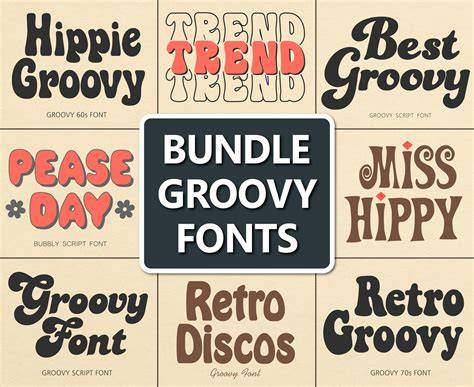
Bringing Back The 60S With Stunning Fonts
The 1960s was a time of great change, full of energy and innovation. It was an era of peace, love and music, and some of the most eye-catching fashion, art and design styles in history. From the psychedelic swirls of hippie culture to the mod look and geometric shapes of the mod movement, the 60s was a time when bold design was all the rage.
The distinctive font styles of the era have become iconic in the decades since, and they continue to be used in modern graphic design. Whether you’re looking to evoke the style of the 60s in your own work or simply want to add a little retro flair, here are some of the most popular 60s fonts for your projects.
Pop Art Fonts
The pop art movement of the 1960s was all about bright colors, bold patterns and playful imagery. To capture the style of this era, you’ll want to select a font with a modern, geometric look. Popular options include the classic Groovy Ghost font, as well as the quirky and cartoonish Rocksteady font. For a more abstract feel, try the Pop Art font or the Pop Art Deco font.
Psychedelic Fonts
The psychedelic era of the 60s is known for its vibrant colors, swirling patterns and dreamy font styles. To achieve this look, you’ll want to choose a font with a psychedelic, trippy feel. Popular choices include the Groovy Ghost font, the Psychedelic font and the Psychedelic Deco font. Other great options include the Starz font and the Zig Zag font.
Mod Fonts
The mod look of the 60s was all about minimalism and geometric shapes. To get this look, try the Mod font, the Mod Deco font or the Mod Noodle font. For an edgier style, opt for the Mod Squared font or the Mod Stencil font. And if you’re looking for something a bit more playful, try the Mod Groove font or the Mod Groovy font.
Typewriter Fonts
Typewriter fonts are a great way to evoke the vintage look of the 60s. Popular options include the Typewriter font and the Typewriter Deco font. For a more modern twist, try the Typewriter Groovy font or the Typewriter Groovy Deco font. And for a truly retro feel, opt for the Retro Typewriter font or the Retro Typewriter Deco font.
The 60s was a time of great change, full of energy and innovation. To capture the essence of this era, you’ll want to choose a font with a modern, geometric look. Popular choices include the Groovy Ghost font, the Pop Art font, the Psychedelic font and the Mod font. Or, if you’re looking for something a bit more vintage, try a typewriter font like the Typewriter font or the Retro Typewriter font. Whichever style you choose, these 60s fonts will add a unique and eye-catching touch to any project.